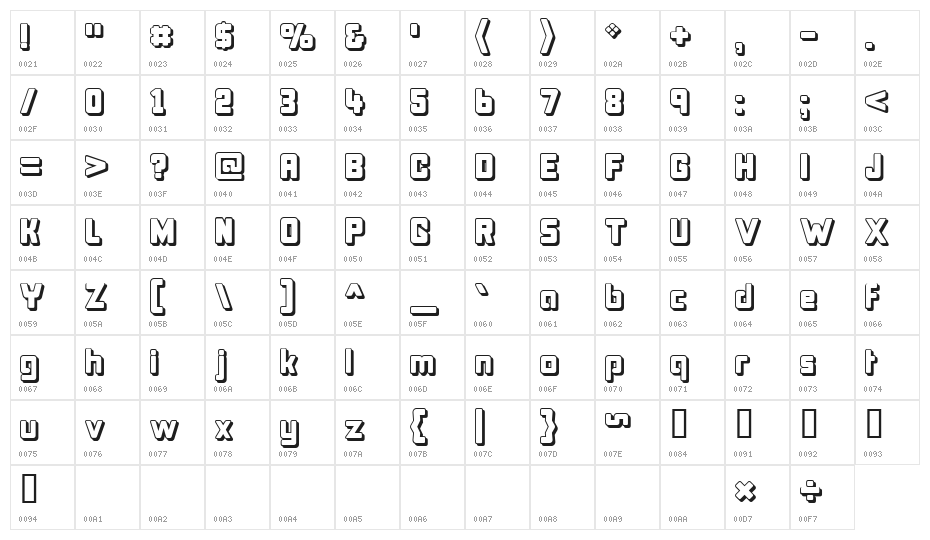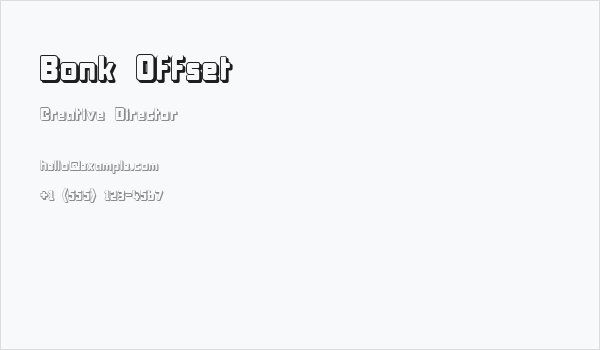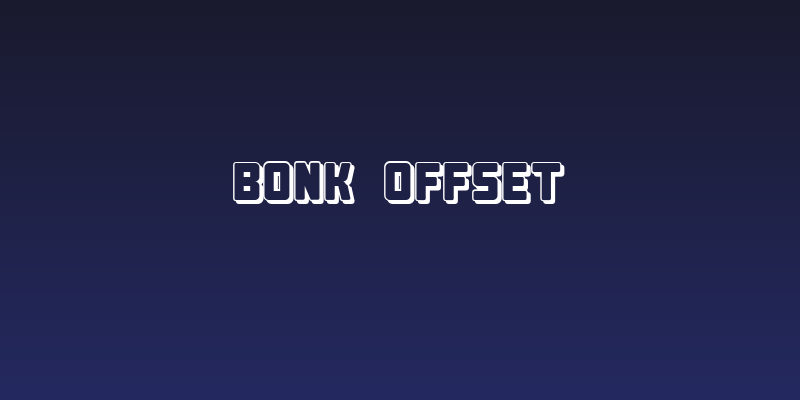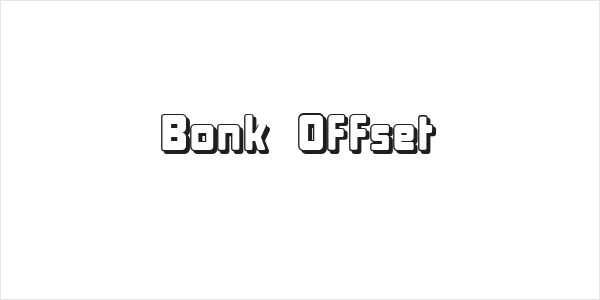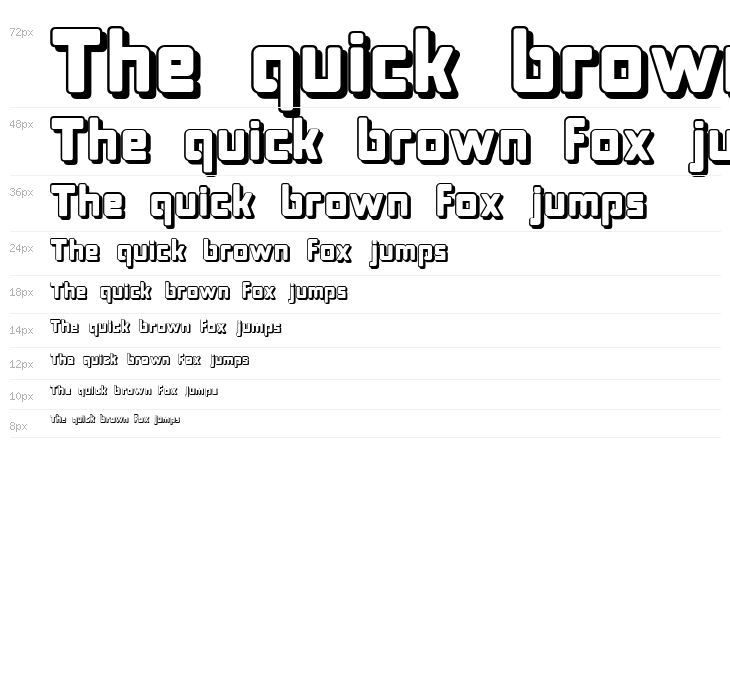
Bonk Offset Font
Bonk Offset Description
This font features a bold, three-dimensional appearance with a distinct shadow effect that gives each character a sense of depth and weight. The characters are blocky and geometric, with rounded edges that soften the overall look. The uppercase and lowercase letters maintain a consistent style, ensuring readability while adding a playful, modern touch. The numbers and special characters follow the same design principles, making them cohesive with the alphabet. This font is ideal for creating eye-catching headlines or logos that require a strong visual impact.
| Proposed Projects | Ideal for use in logos, posters, video game graphics, and any project needing a bold, playful aesthetic. |